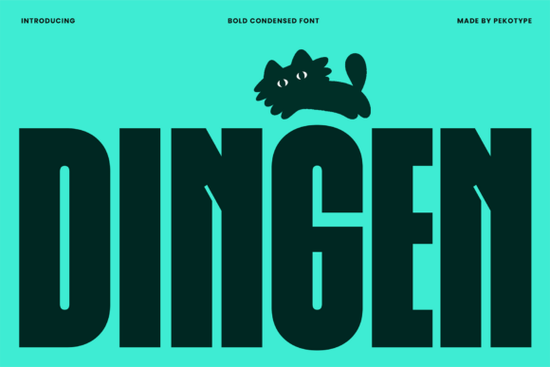
When you're working on a design that needs to grab attention fast, the right typeface makes all the difference. The Dingen Font is a bold, condensed sans-serif built exactly for that purpose. With its tall proportions and clean structure, it gives any project a modern, confident feel without looking cluttered. If you're a designer, small business owner, or print-on-demand seller looking for a typeface that commands attention while staying readable, this one is worth a closer look.
What Makes the Dingen Font Different from Other Bold Typefaces?
Plenty of fonts claim to be bold, but many end up looking either too heavy or too generic. The Dingen Font takes a slightly different approach. Its condensed letterforms pack more visual punch into less horizontal space, which means you can fit strong text into tighter layouts without sacrificing impact.
The shapes are clean and geometric, giving the font a polished, contemporary edge. It avoids unnecessary flourishes, which keeps it versatile across different design contexts. Whether you're setting a headline for a poster or laying out text for a product label, the lettering stays sharp and easy to read at both large and medium sizes.
What Can You Actually Use This Font For?
This is where the Dingen Font really shines. Its bold, condensed style fits naturally into a wide range of creative projects, including:
- Logos and branding – especially for modern, minimal, or streetwear-style brands
- Poster and flyer design – where large headlines need to pop from a distance
- Packaging and product labels – great for shelf appeal on jars, boxes, and wraps
- Social media graphics – bold enough to stand out in a crowded feed
- Signage and environmental graphics – clean shapes stay readable at scale
- Advertising and promotional materials – catches the eye in print or digital ads
- Presentations – makes slide titles look sharp and professional
Does It Pair Well with Other Fonts?
Absolutely. One of the strengths of a condensed bold sans-serif is how well it plays with other typefaces. You can pair the Dingen Font with a lighter serif or a simple sans-serif for body text, and the contrast will look intentional and balanced.
For example, if you're building a brand identity, you might use Dingen for headlines and pair it with something like a relaxed, versatile display typeface for supporting text. On the other hand, if you want something romantic or decorative for a secondary design project, a dainty, ornamental font style could complement the boldness of Dingen in a different context.
For projects that lean more edgy or tech-focused, a strong, modern display font could work alongside Dingen for a cohesive, contemporary look. And if you ever need something with a bit more character or flair, an exclusive, distinctive display option gives you another direction to explore.
Is It a Good Fit for Small Business Branding?
If you're building a brand from scratch, choosing the right typeface for your logo and marketing materials is a big decision. The Dingen Font works well for brands that want to project strength, confidence, and modernity. Think fitness studios, streetwear labels, tech startups, food trucks, coffee roasters, or creative agencies.
Because the letterforms are clean and structured, they scale nicely across different media from business cards to banners. That kind of flexibility matters when you're a small business trying to keep your visual identity consistent across multiple touchpoints.
Just keep in mind that bold condensed fonts work best as display or headline type. For longer paragraphs or body copy, you'll want to switch to something with more breathing room and readability at smaller sizes.